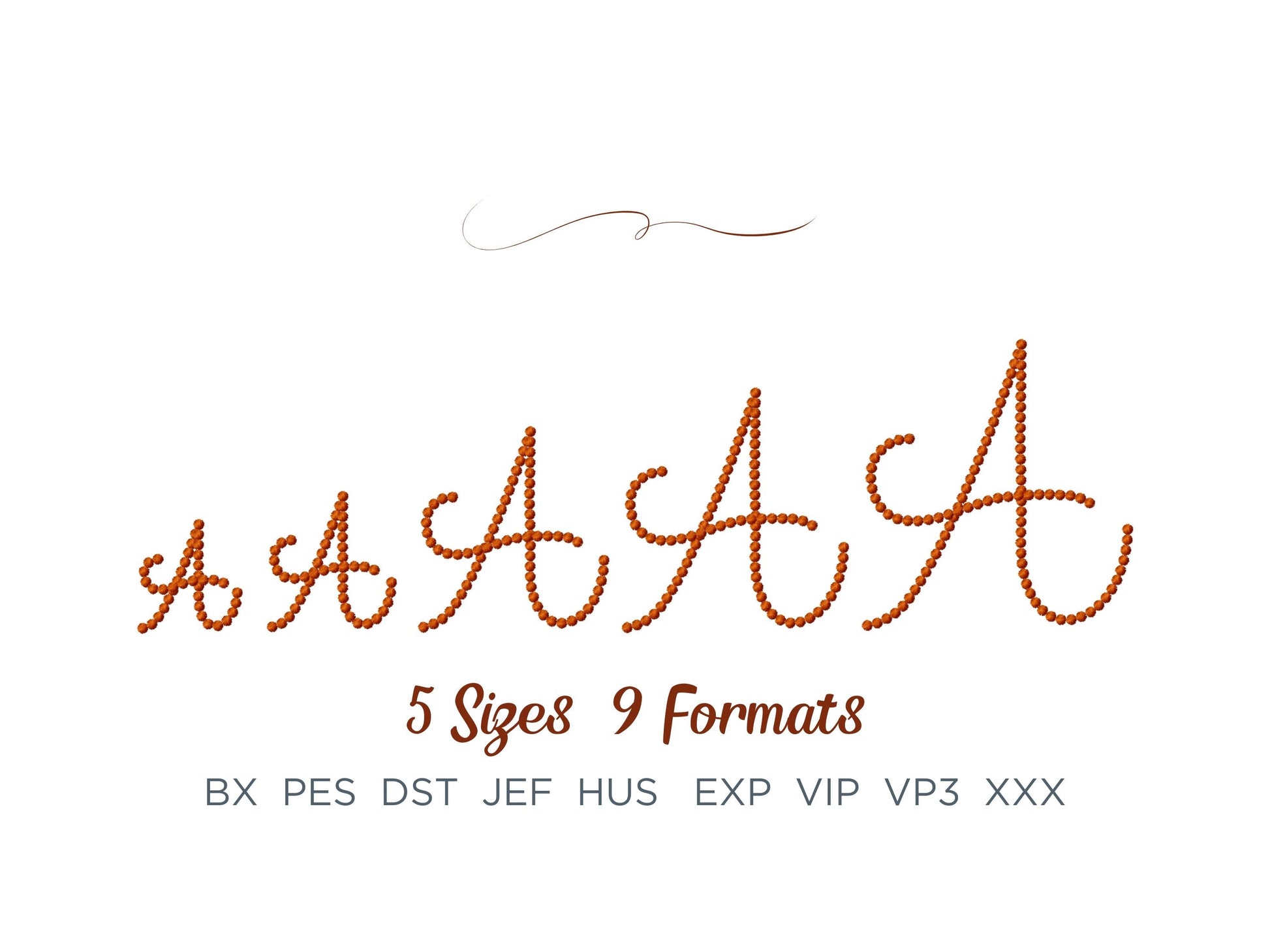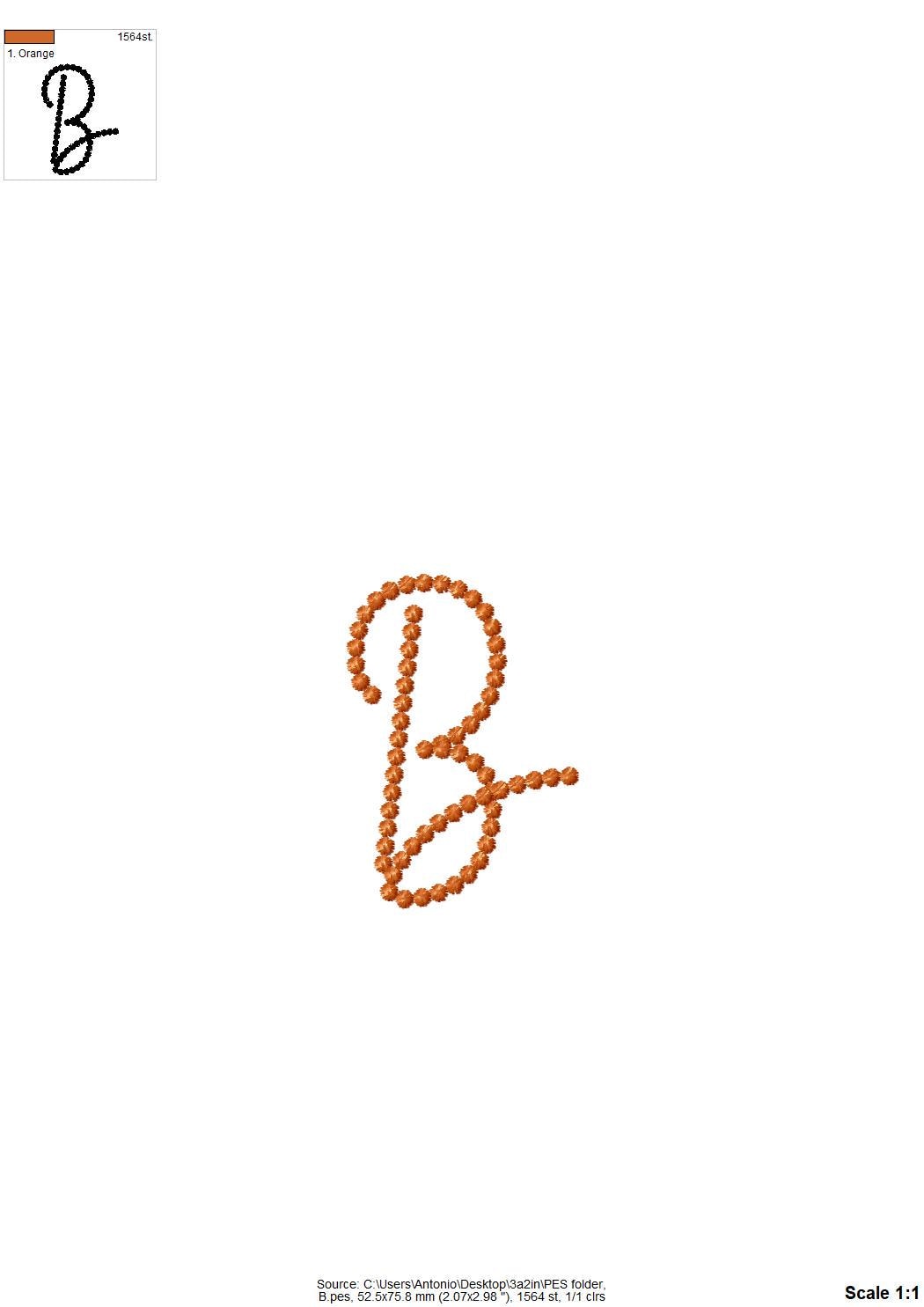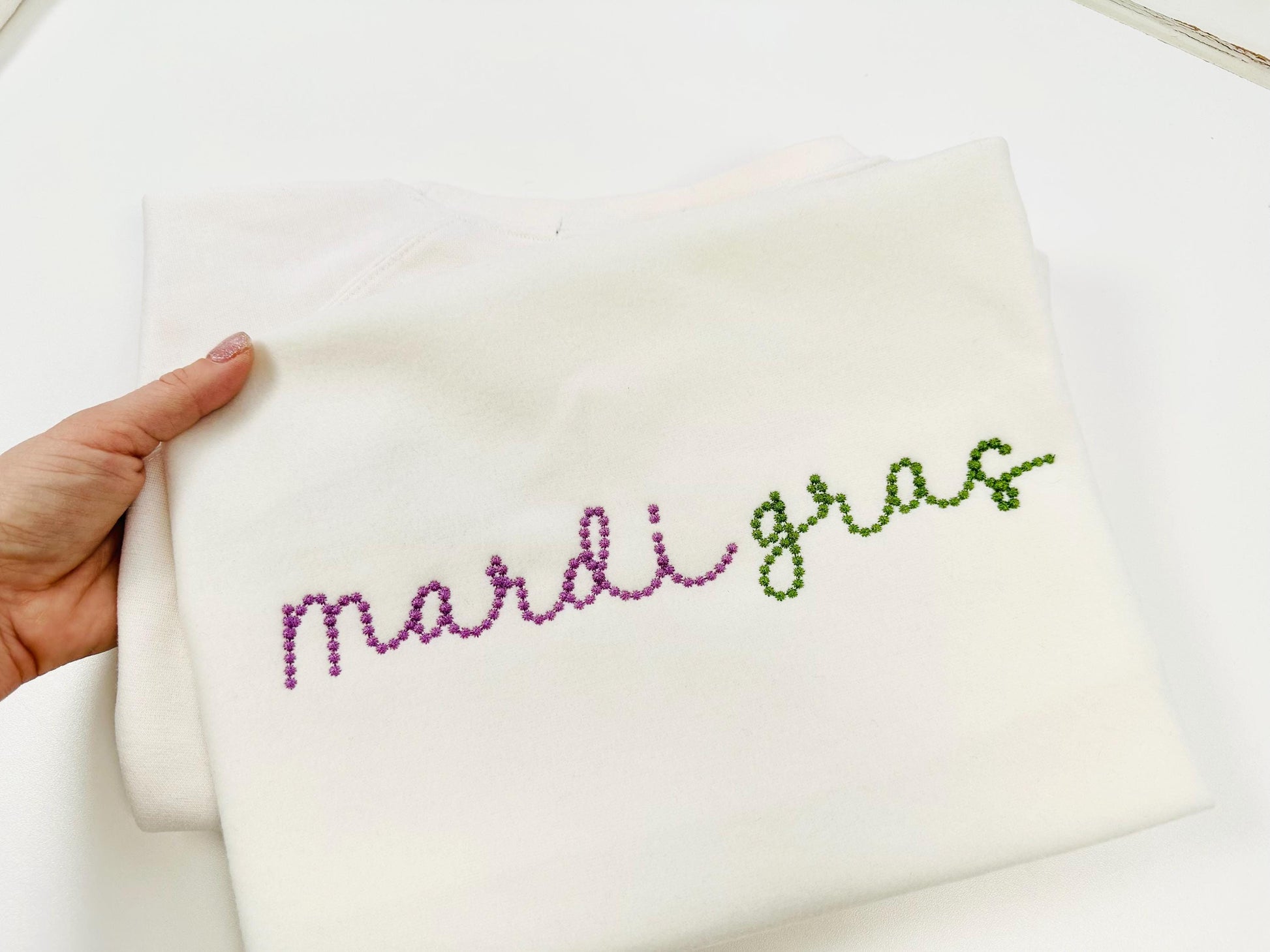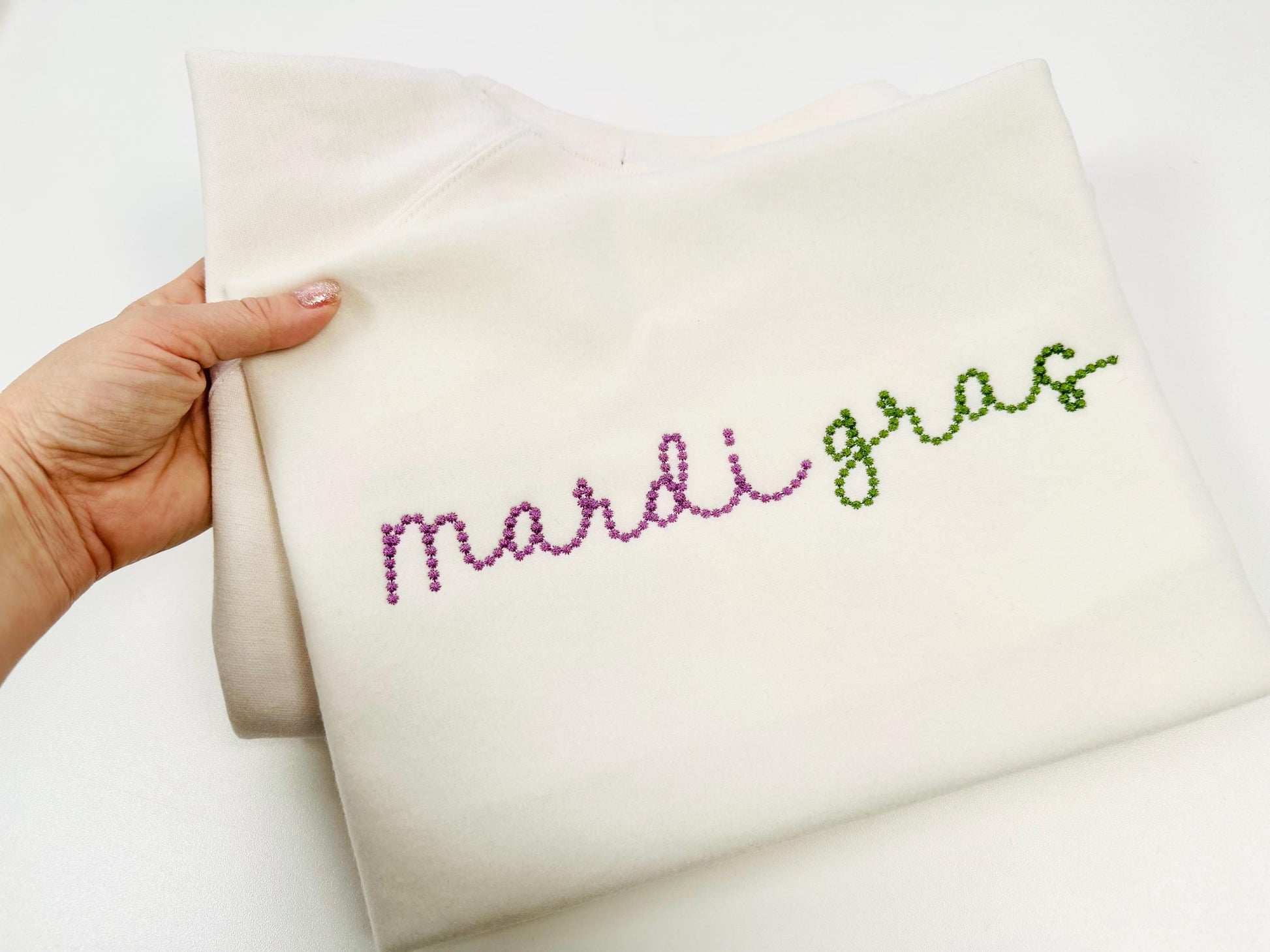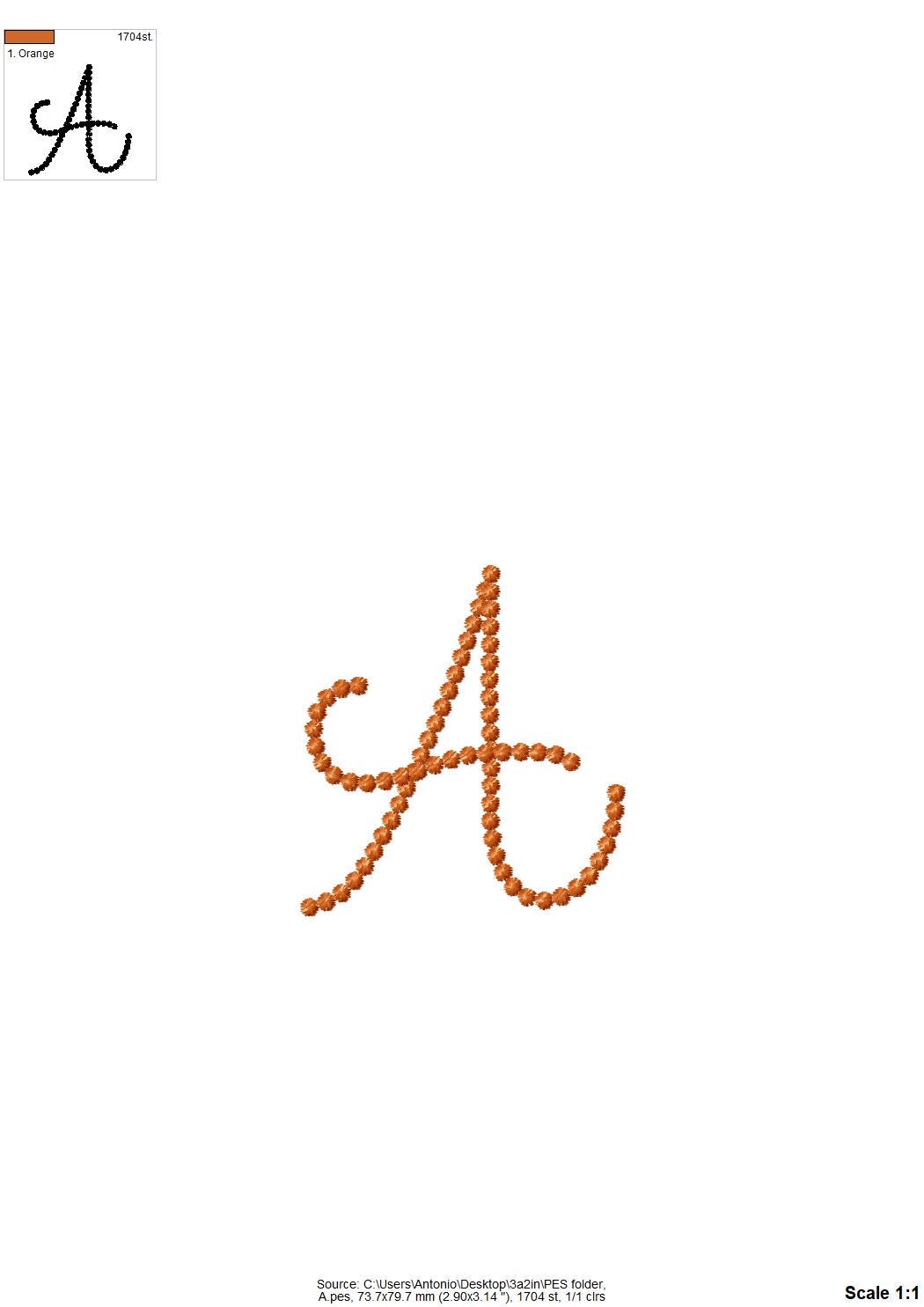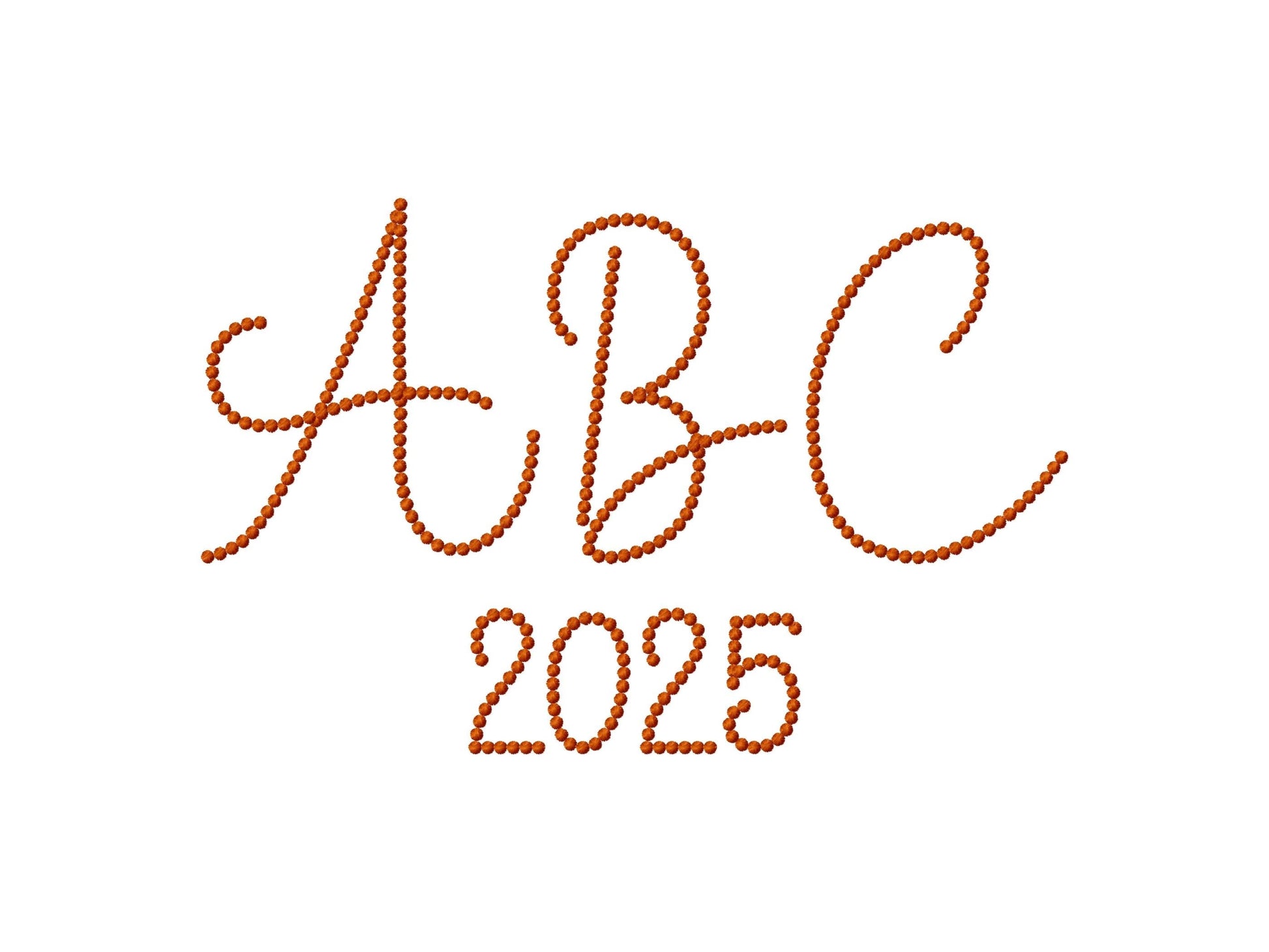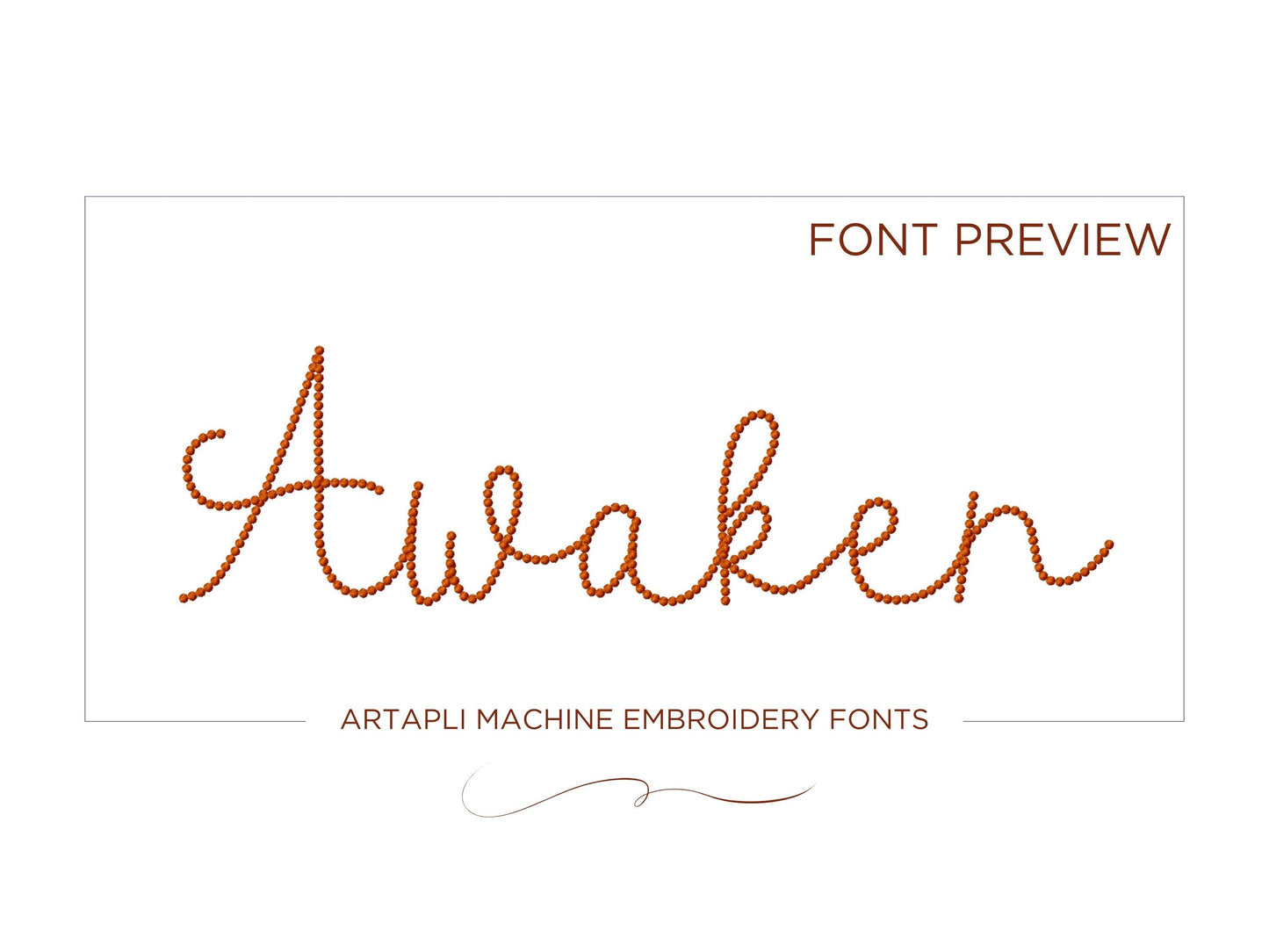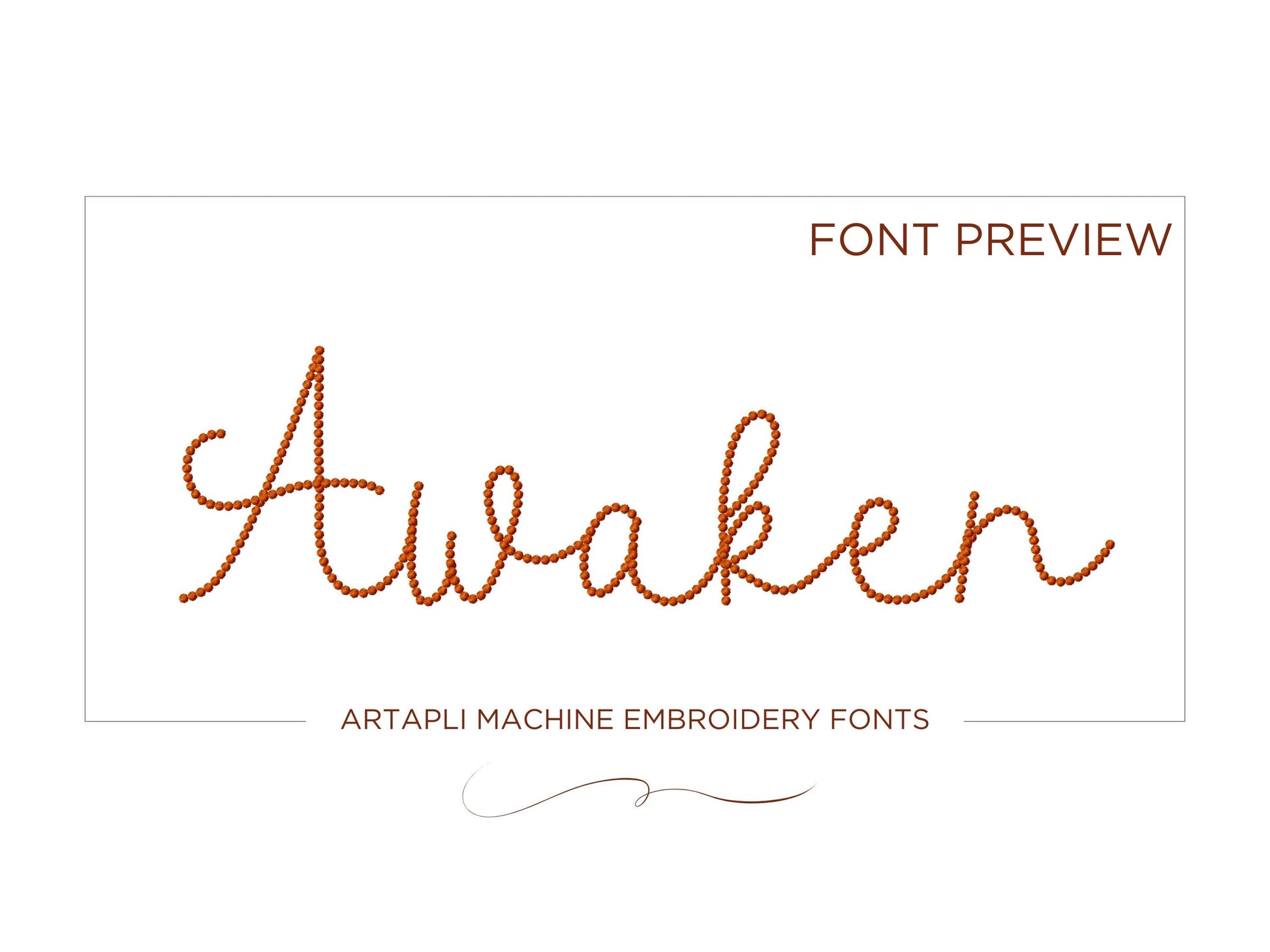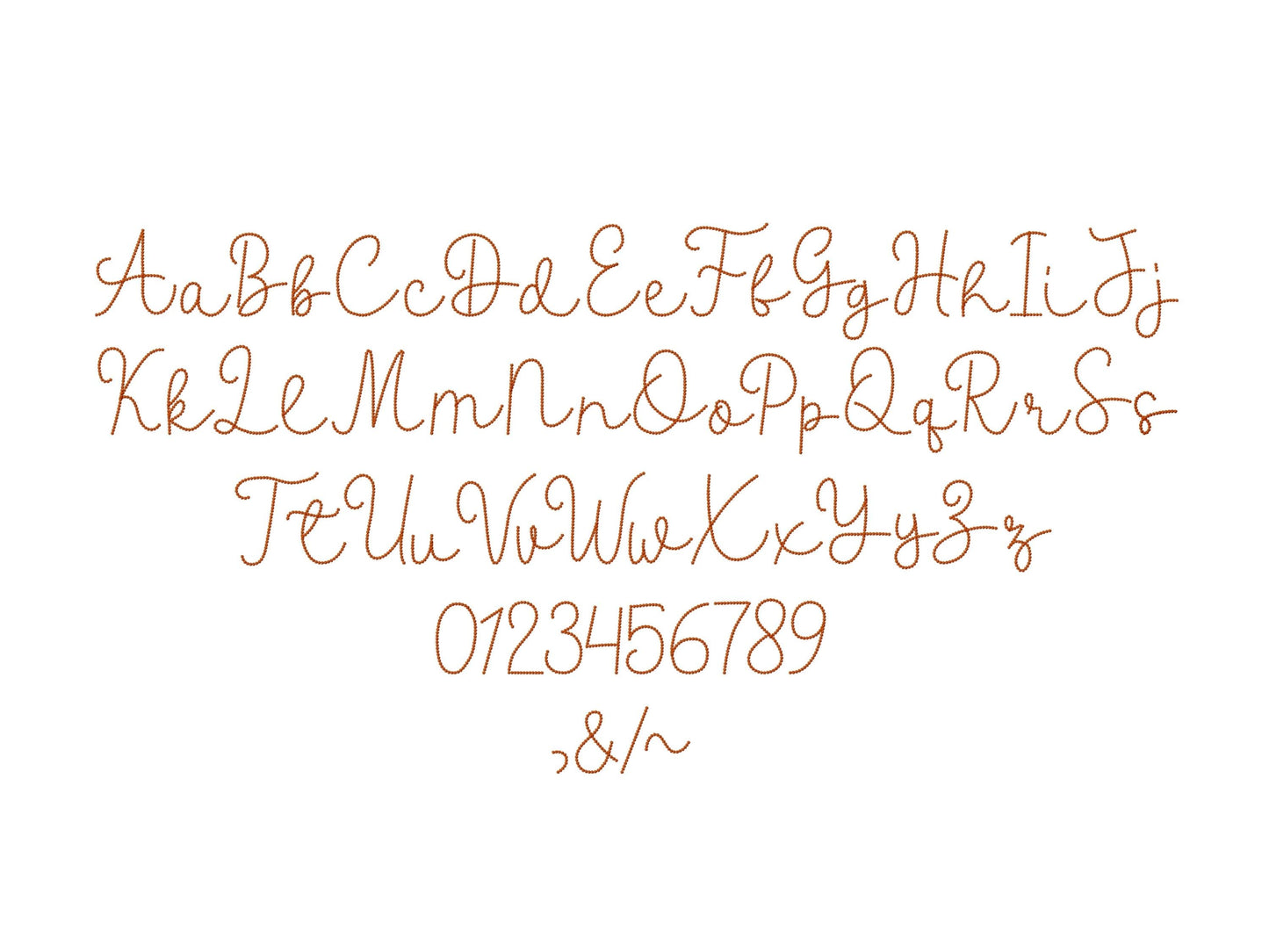
Pearl Stitch Handwritten Script Font
The letters come in five sizes: 1.8, 2.2, 3.2, 3.8 and 4.5 inches. A pearl stitch line gives the script a soft, beaded look. Includes uppercase and lowercase letters, numbers 0 to 9 and punctuation.
- Pearl stitch script font
- 5 sizes, 1.8 to 4.5 in